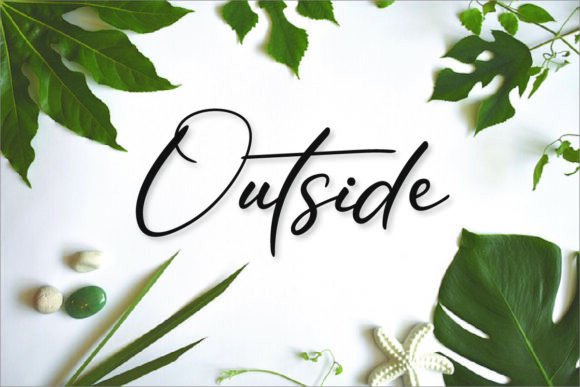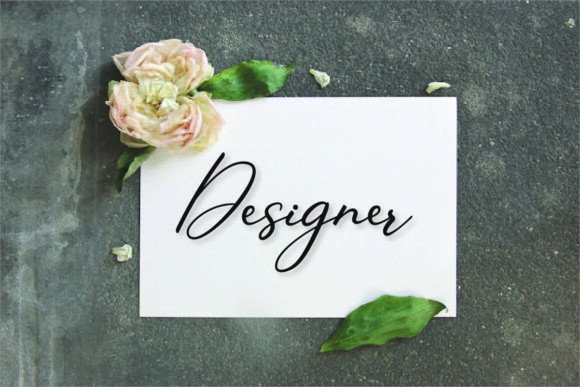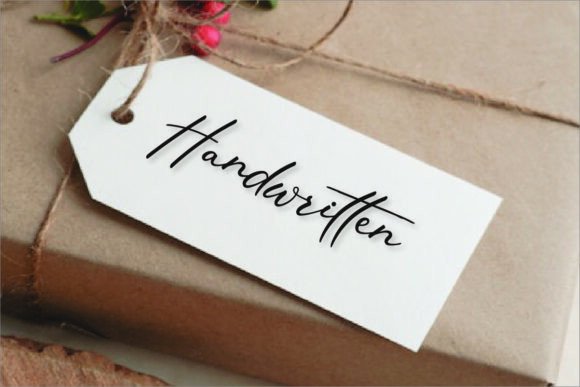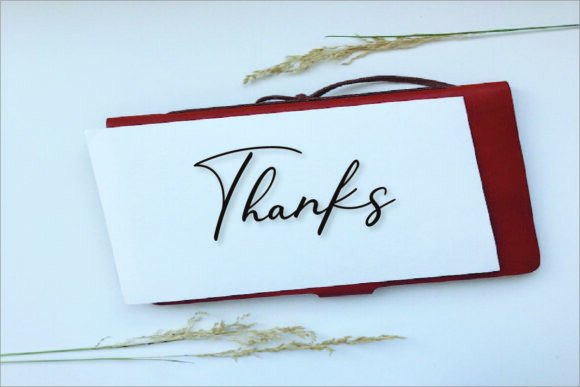
Introducing Brothers Font: The Sweet and Friendly Handwritten Font for Your Creative Projects
Are you tired of using the same old fonts for your designs? Look no further! Brothers Font is here to revolutionize your creative projects with its sweet and friendly handwritten style. This versatile font is perfect for designers, crafters, and anyone looking to add a personal touch to their work. In this article, we’ll dive into the world of Brothers Font and explore its unique features, uses, and benefits.
The Unique Style of Brothers Font
Brothers Font boasts a natural and unique style that makes it incredibly fitting for a wide range of designs. Its handwritten charm is perfect for creating a personal and approachable feel in your projects. Whether you’re working on a logo, branding materials, or digital content, Brothers Font is sure to make your designs stand out.
One of the standout features of Brothers Font is its versatility. Its sweet and friendly tone makes it suitable for a variety of projects, from children’s products to adult-oriented designs. The font’s natural flow and rhythm create a sense of warmth and approachability, making it perfect for designs that require a personal touch.
Endless Possibilities with Brothers Font
The only limit to using Brothers Font is your imagination! With its unique style and versatility, you can use it for a wide range of projects, including:
- Logos and branding materials: Create a memorable and recognizable brand with Brothers Font’s distinctive style.
- Digital content: Add a personal touch to your blog posts, social media graphics, and email newsletters.
- Print materials: Use Brothers Font for business cards, brochures, and flyers to create a lasting impression.
- Crafting and DIY projects: Add a touch of personality to your handmade crafts, such as journals, cards, and scrapbooking.
Benefits of Using Brothers Font
- Unique style: Brothers Font’s handwritten style sets it apart from other fonts, ensuring your designs stand out from the crowd.
- Versatility: Use Brothers Font for a wide range of projects, from digital content to print materials.
- Ease of use: Brothers Font is easy to read and works well in various sizes, making it perfect for designs that require a clear and legible font.
Tips for Using Brothers Font
- Experiment with colors: Brothers Font looks great in a variety of colors, so don’t be afraid to try out different hues and combinations.
- Mix and match: Combine Brothers Font with other fonts to create a unique and eye-catching design.
- Pay attention to spacing: Make sure to adjust the spacing between letters and words to create a clear and readable design.